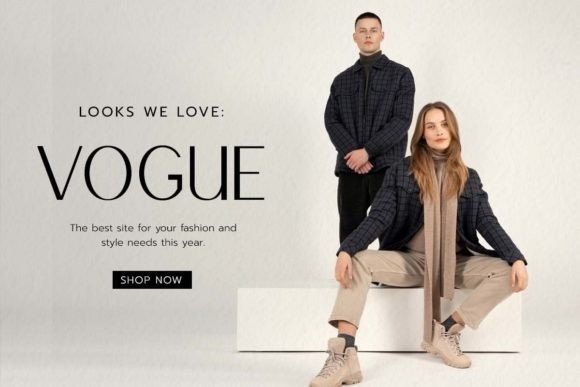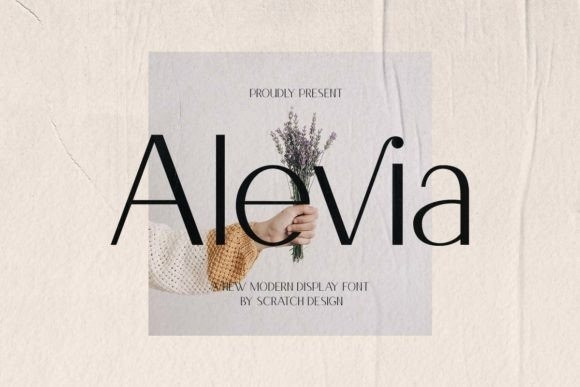
Alevia Font
Alevia Font, is a modern display sans serif with a clean and minimalist touch. It has a sophisticated, and elegant typeface design. This beautiful font has been designed for projects which are suitable for modern & elegant design, such as branding, packaging, magazines, logos, social media, websites, headers, and many more.